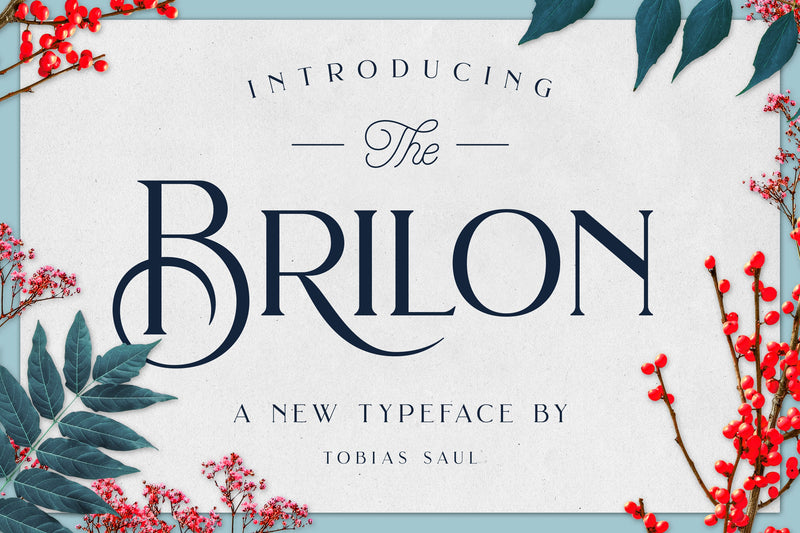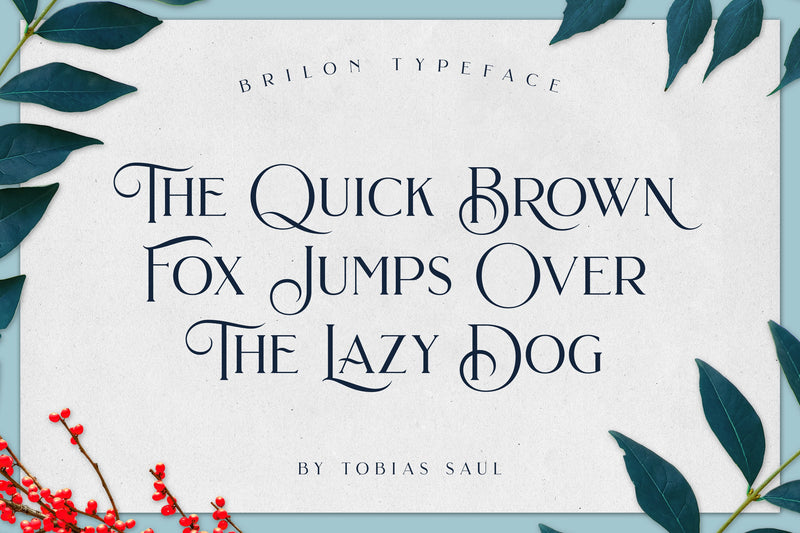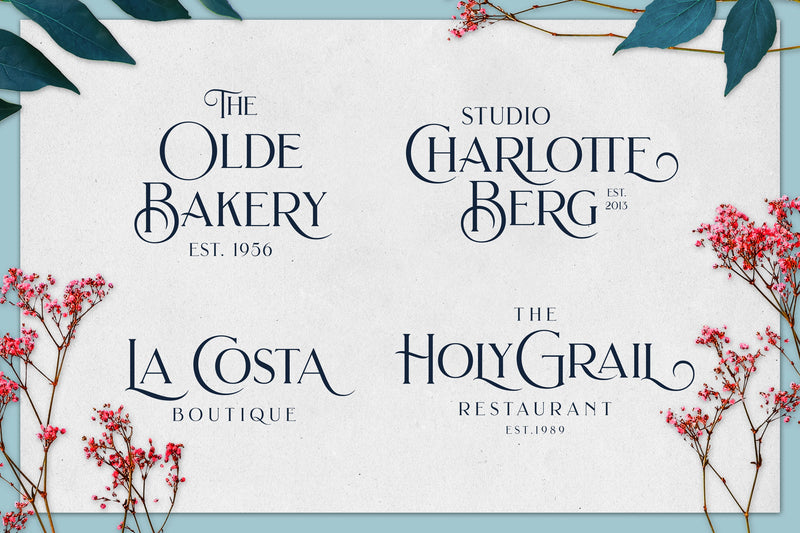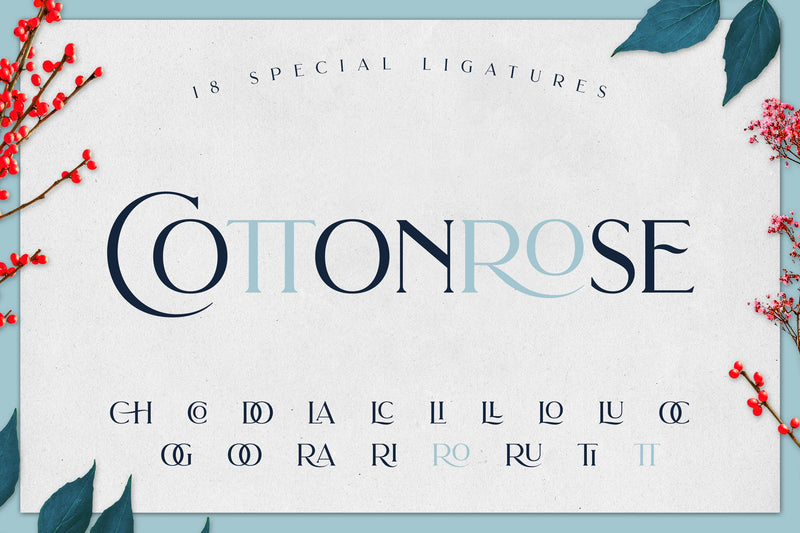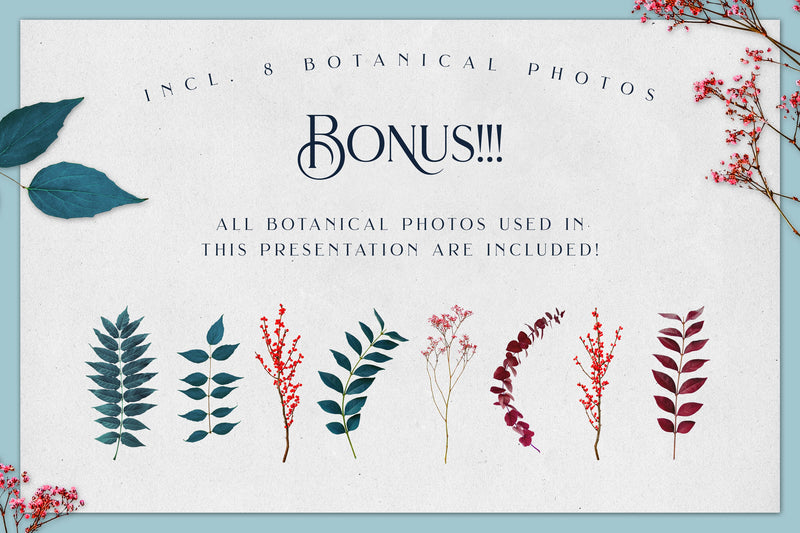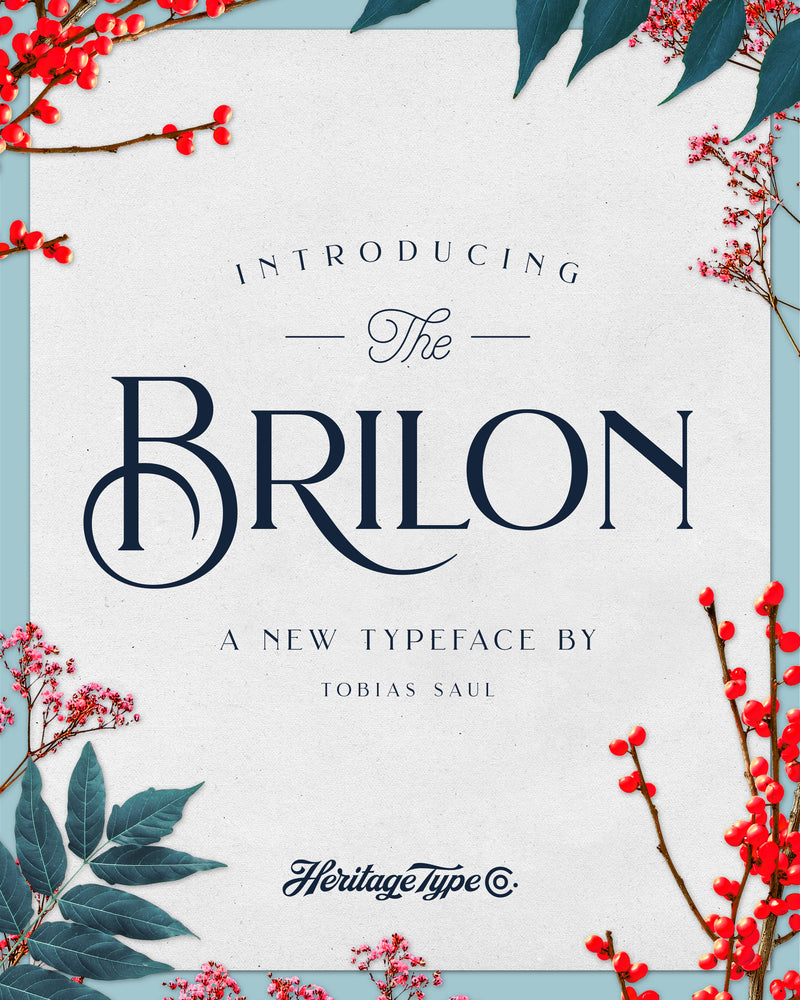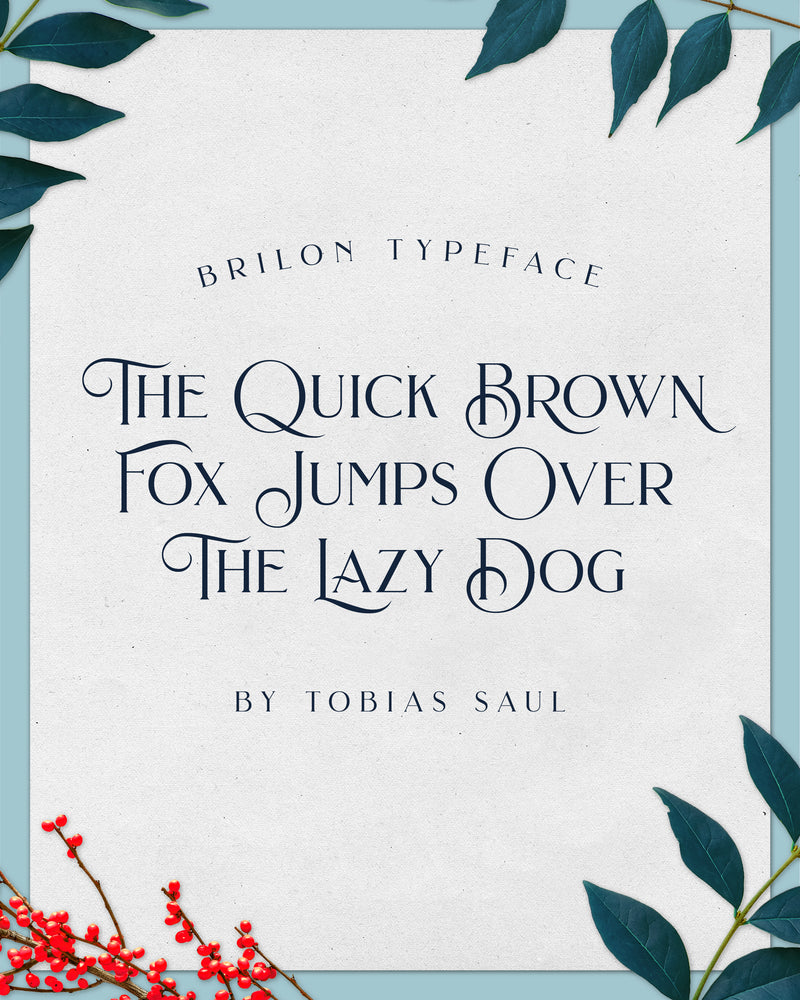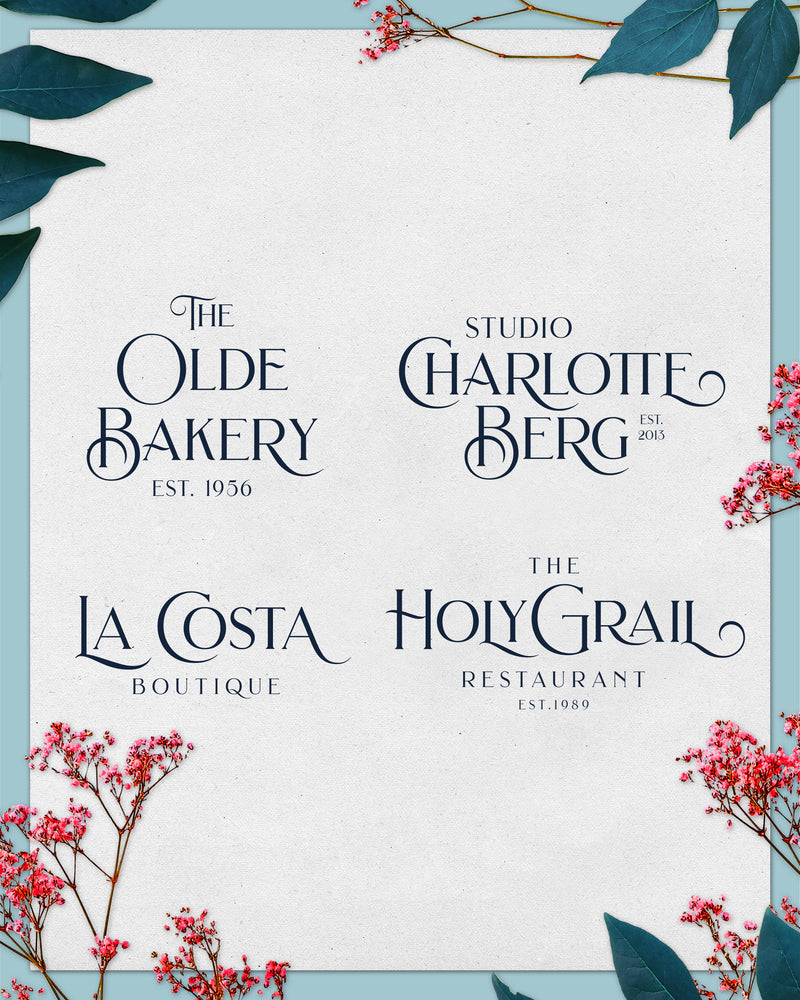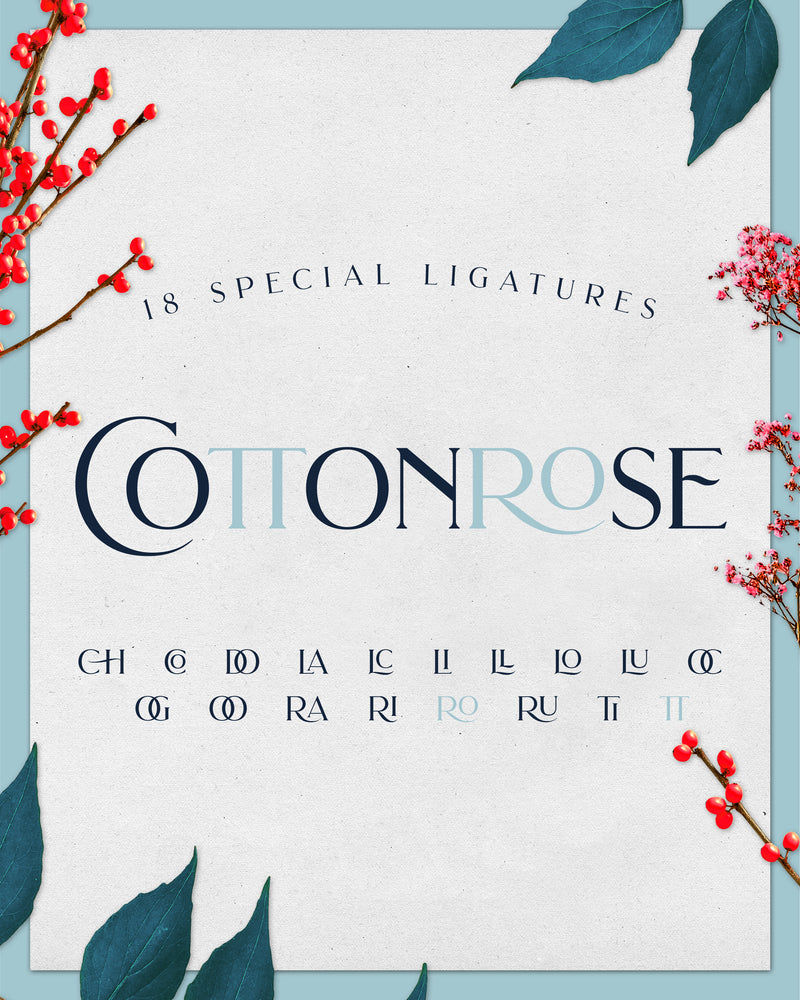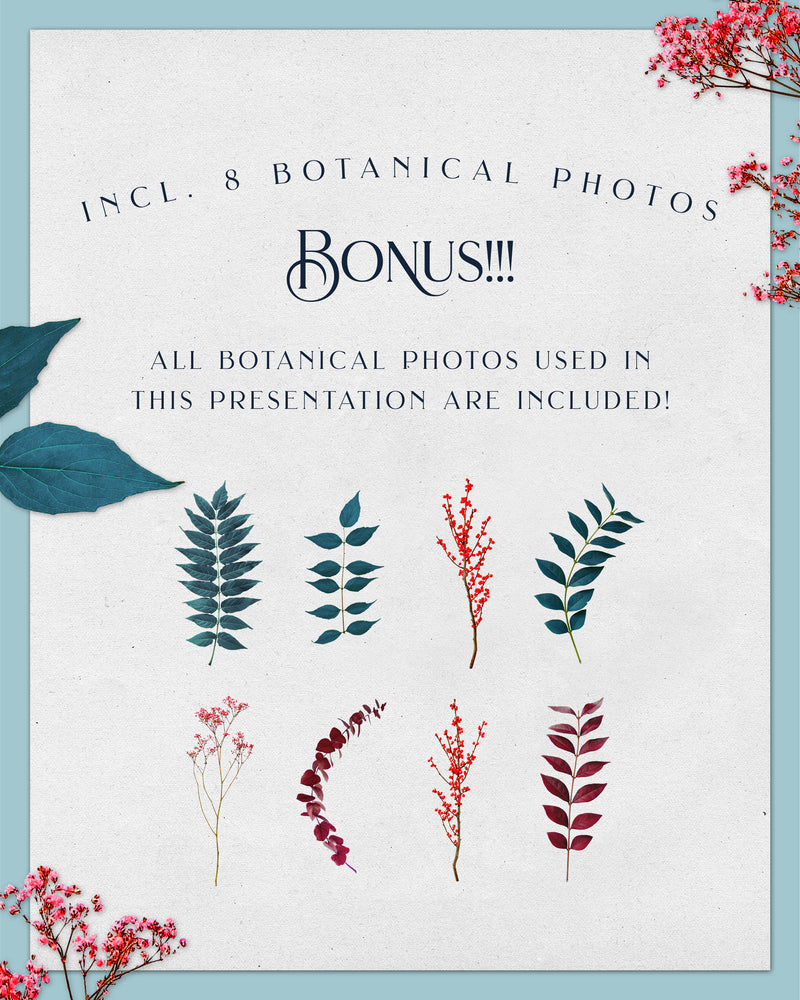
Brilon Font + Extras
Brilon is an elegant serif font inspired by the Art Deco era. It perfectly represents vintage esthetics in a modern and minimalist way. The font includes special uppercase letters, alternate characters and beautiful ligatures. Furthermore it comes with 8 botanical photos which I used in this product presentation! The font is perfect for elegant logo design, packaging or invitation cards.
Font Features
- Character set A-Z with special uppercase letters
- Special Ligatures
- Stylistic Alternates
- Numerals & Punctuation
- Accented Characters (West Europe)